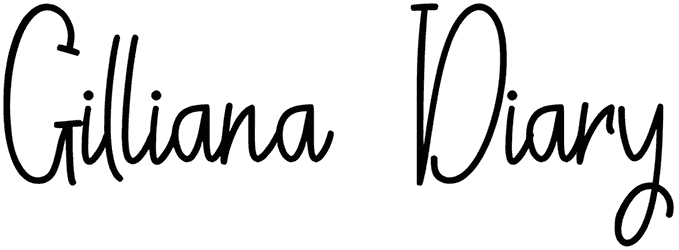
Gilliana Diary Font
Say hi to this sweet and darling handwritten font, which is called Gilliana Diary. With a modern and minimal manual style, this natural font could be harmonized with various contexts and subjects. Set this monoline face for your coming projects, from logotypes to illustrations, and make them your flagship designs.